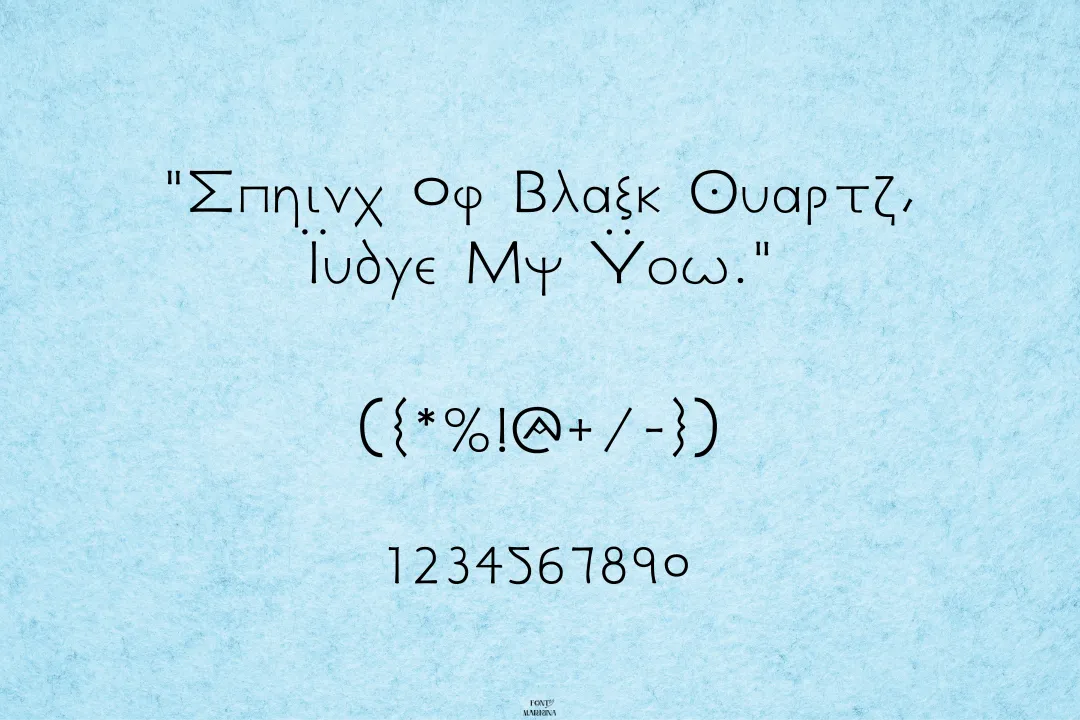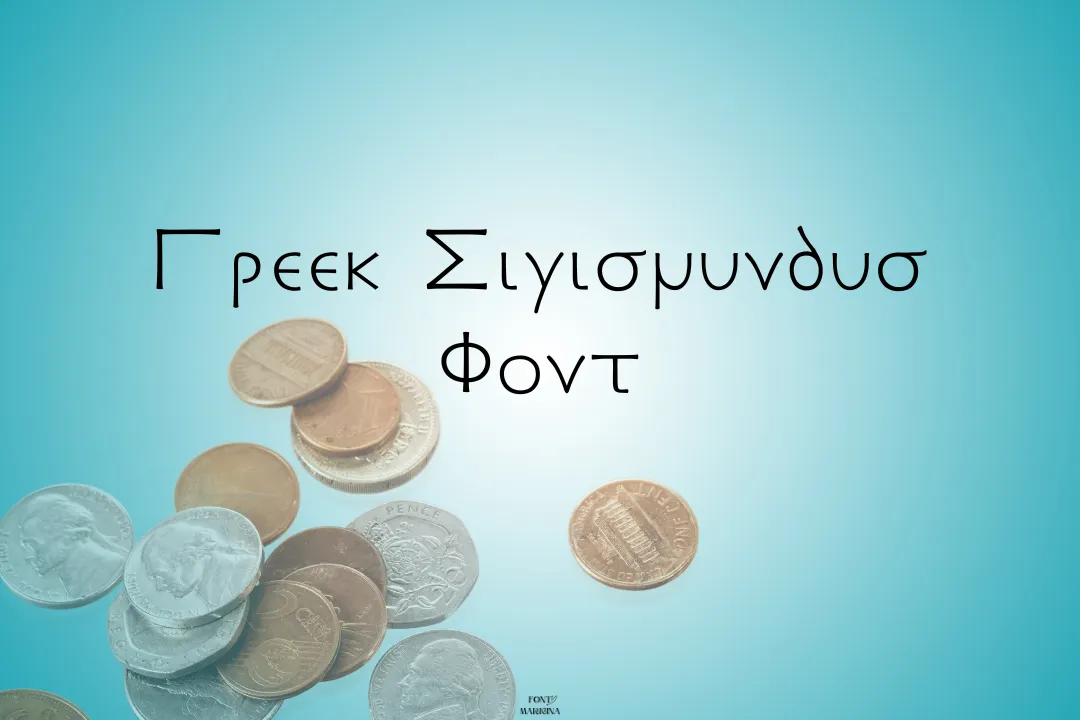
The Greek Sigismundus font is a standard typeface created by designer Luigi Della Rosa. It is inspired by the Greek alphabet used in ancient Greece and features a classical and elegant style. The font is named after the Polish king Sigismund II Augustus, who was a patron of the arts during the Renaissance period.
The design of this font is characterized by a combination of classical and modern elements. It features clean and sharp lines, rounded curves, and a balanced proportion between the characters. Doctor Glitch font is very closest to this family.
The Greek Sigismundus font features a complete set of uppercase and lowercase Greek letters, along with basic punctuation marks, numerals, and diacritical marks. The font also includes several ligatures and stylistic alternates, which allow designers to customize the typography and create unique visual identities. You can copy and paste your original text into the generator tool of this family and get advanced results.
Usage of Greek Sigismundus Font
The Greek Sigismundus font is well-suited for use in editorial design, such as in books, newspapers, and magazines. The font’s classical and elegant style makes it particularly suitable for text-heavy publications that require legibility and readability, while its modern design elements make it a great choice for contemporary editorial design.
This typography is also a good option for branding and marketing materials, such as brochures, flyers, and posters. The font’s clear forms and clean lines help to convey a sense of professionalism and sophistication, while its classical style can add a touch of elegance and timelessness to the design. Here, is another option for you for more classic results you can make the pairing of Boss Baby font with this texture.
It is a good choice for display typography, such as in headings, subheadings, and titles. The font’s bold and distinctive appearance can help to draw attention and create a strong visual impact, while its legibility ensures that the text remains easily readable.
Greek Sigismundus Font View
| Name | Greek Sigismundus Font |
| Designer | Luigi Della Rosa |
| Type | Fancy |
What is the main category of Greek Sigismundus Font?
The main category of the Greek Sigismundus typeface is a fancy typeface, specifically a display serif typeface.
How many styles are in the Greek Sigismundus typeface?
This texture has only one style available, which is a regular style. It is possible that additional styles have been added since then.